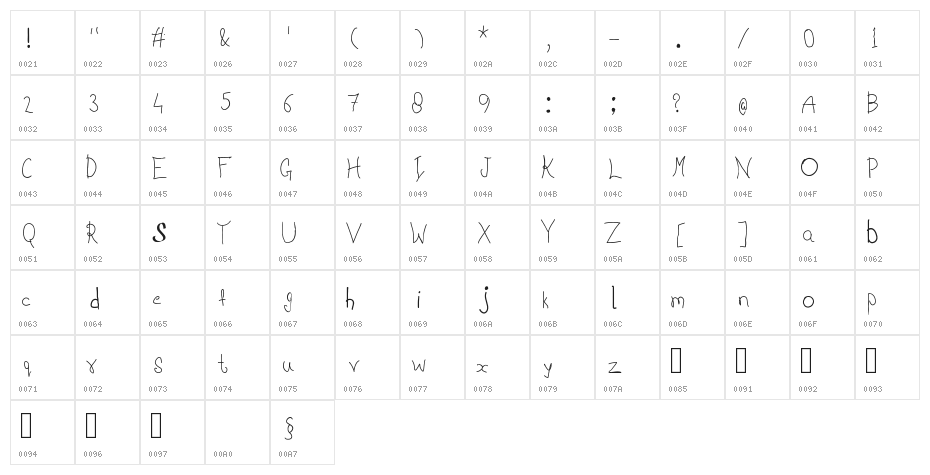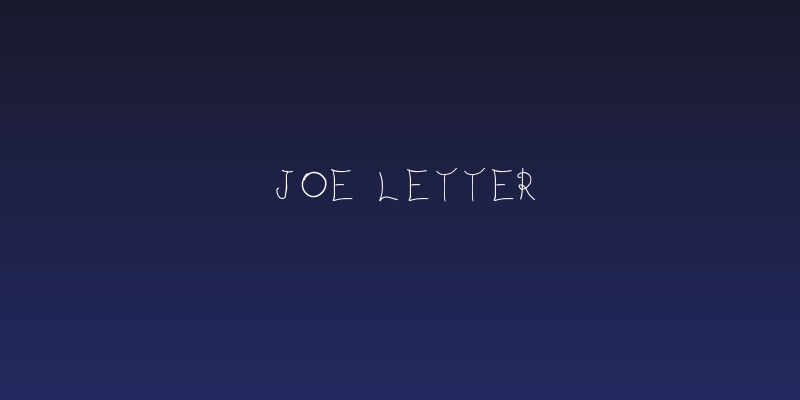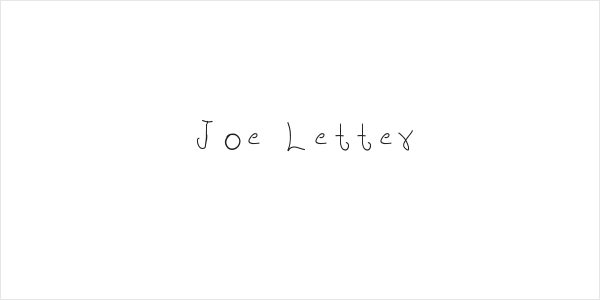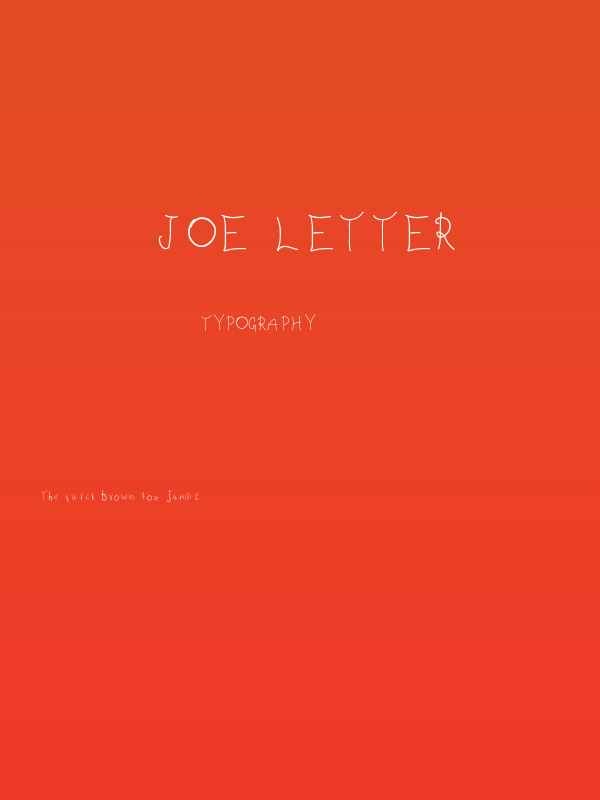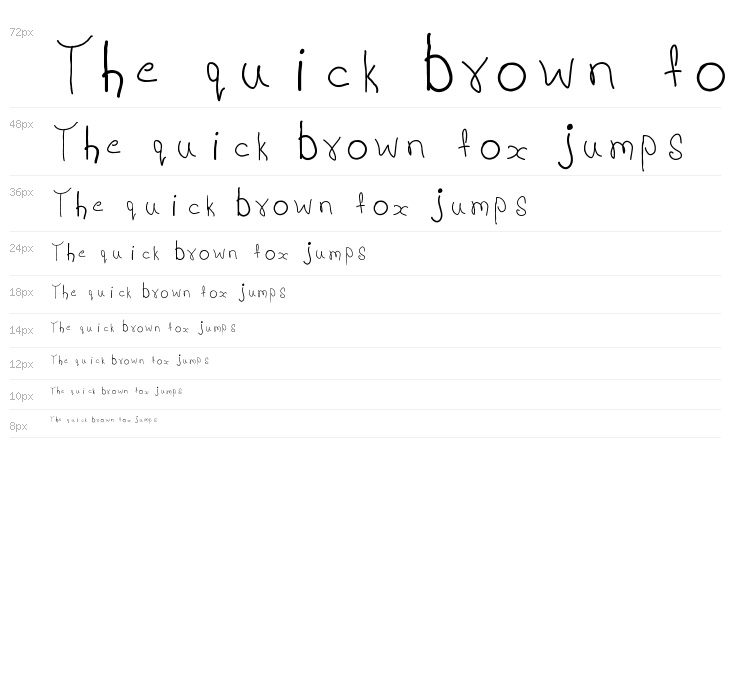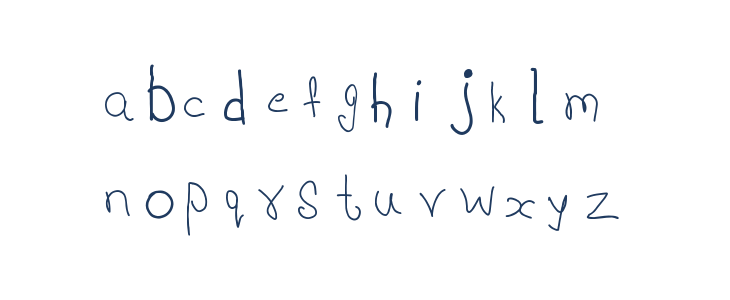
Joe Letter Font
Joe Letter Description
This font exhibits a playful and whimsical handwritten style, characterized by irregular strokes and a casual, informal appearance. The letters are unevenly sized and spaced, giving it a unique, organic feel. The uppercase and lowercase letters maintain a consistent style, with some letters featuring exaggerated curves or angles. The numerals and special characters follow the same playful aesthetic, making the font suitable for creative and informal applications. Its distinctiveness lies in its hand-drawn quality, which adds a personal touch to any design.
| Overall Style | Whimsical |
| Proposed Projects | Ideal for children's books, greeting cards, personal blogs, and creative branding projects. |